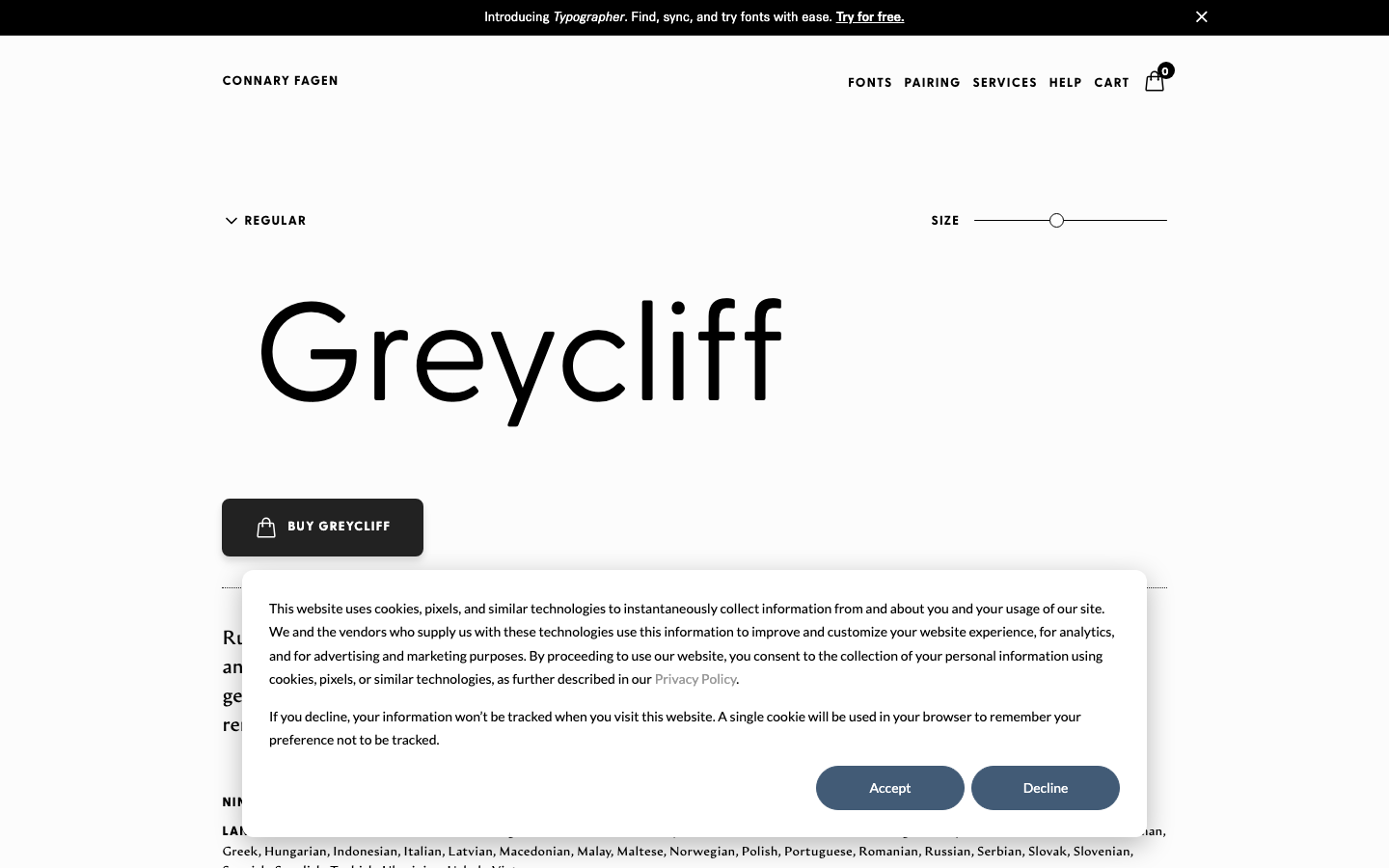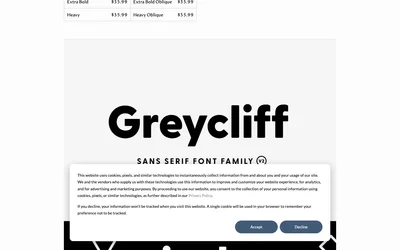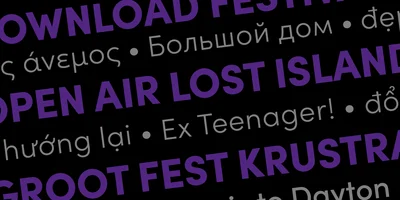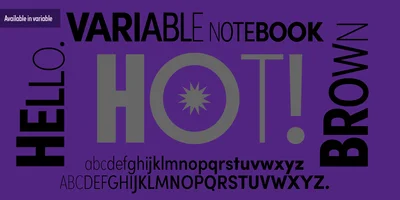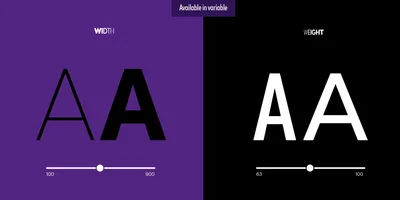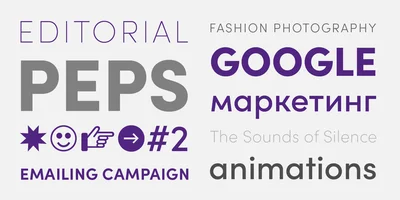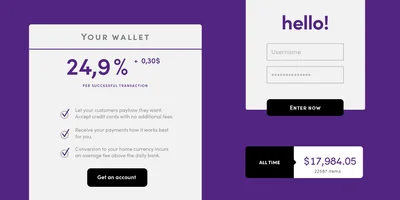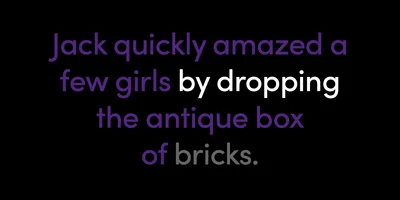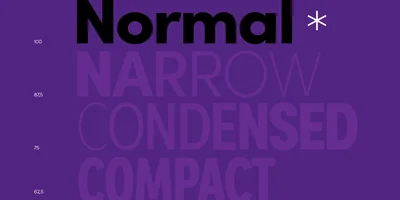
Greycliff vs Sofia Pro
Greycliff and Sofia Pro are both sans-serif typefaces sharing a geometric foundation. The two share 87% design similarity overall. Compare which suits your Branding project.
Where You'll See These Fonts
Sofia Pro
- Mobile apps
- Startup branding
- E-commerce sites
- Healthcare apps
- Consumer products
Recommended: Greycliff
- Suited for Ui
- From Connary Fagen
Consider: Sofia Pro
- Suited for Packaging and Advertising
- From Mostardesign